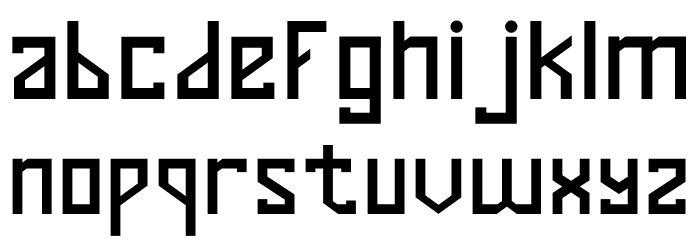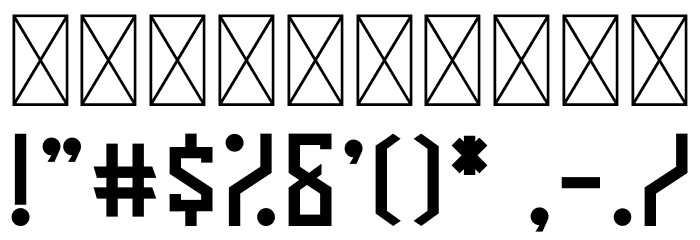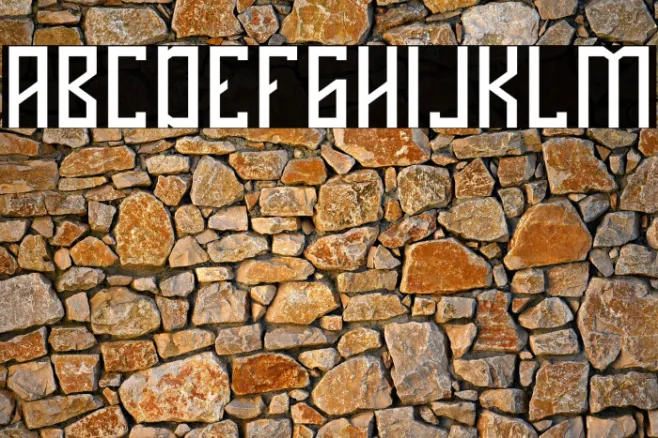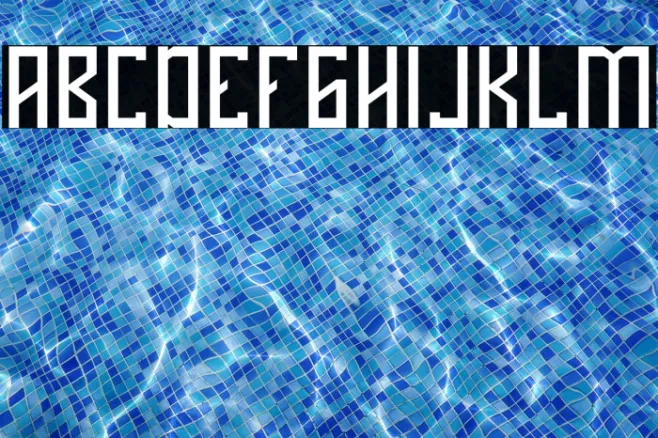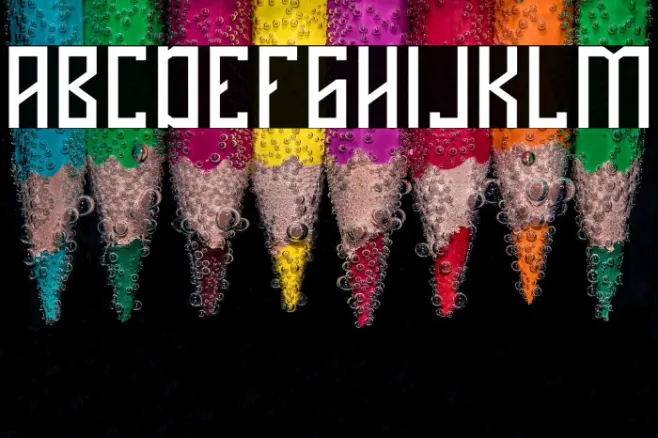
Assasin Aerox Font
This font features a geometric and angular design, characterized by sharp edges and a bold presence. The uppercase letters are distinct with a futuristic and mechanical feel, while the lowercase letters maintain a consistent style that complements the uppercase. The numerals and special characters follow the same angular theme, ensuring uniformity across all glyphs. The font's structure is clean and precise, making it suitable for projects that require a modern and edgy aesthetic. Its unique style makes it stand out, ideal for attention-grabbing designs.
A geometric, angular font with a bold, futuristic style.
- Font: Assasin Aerox
- Proposed Projects: Ideal for technology branding, video game titles, sci-fi posters, and modern logos.